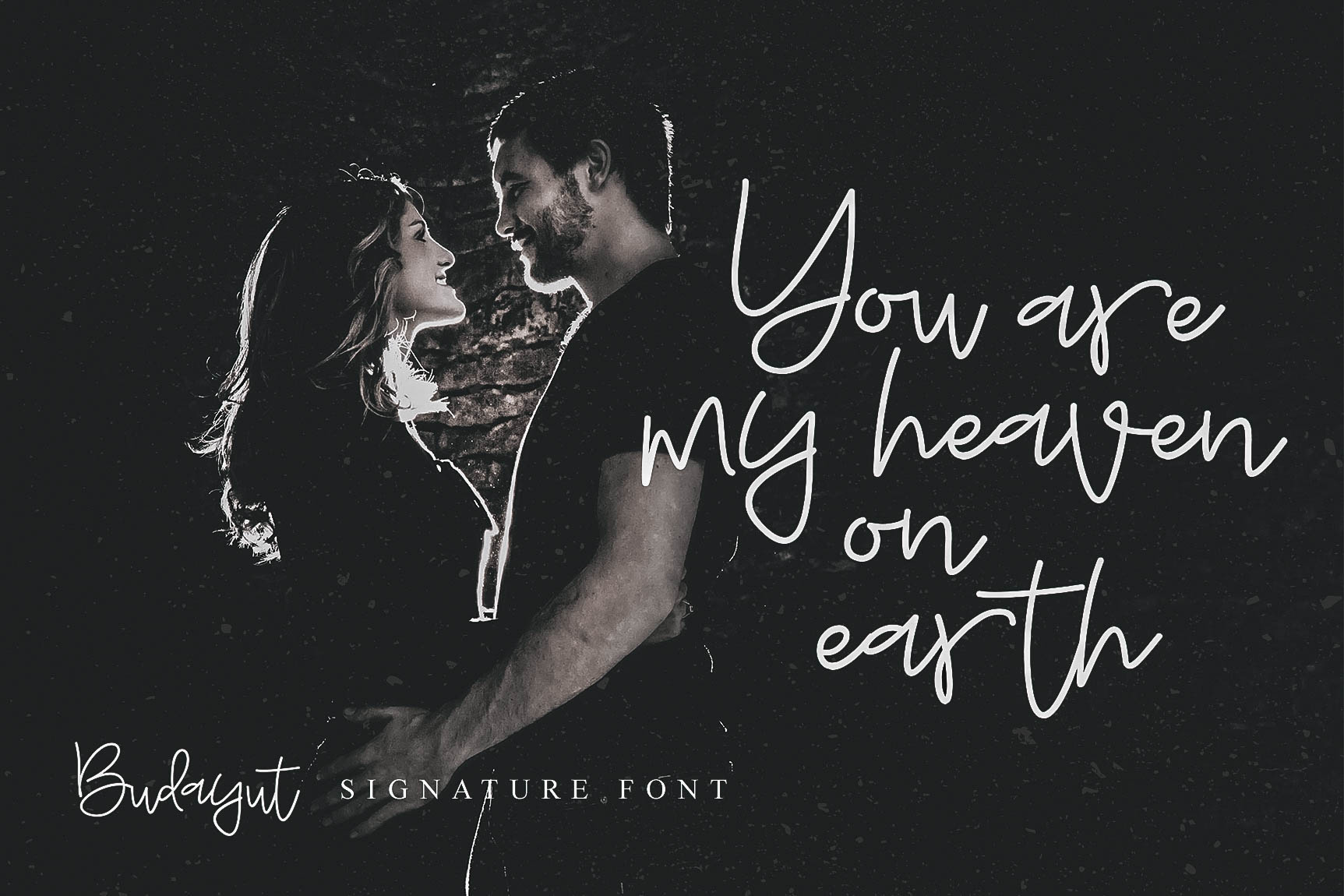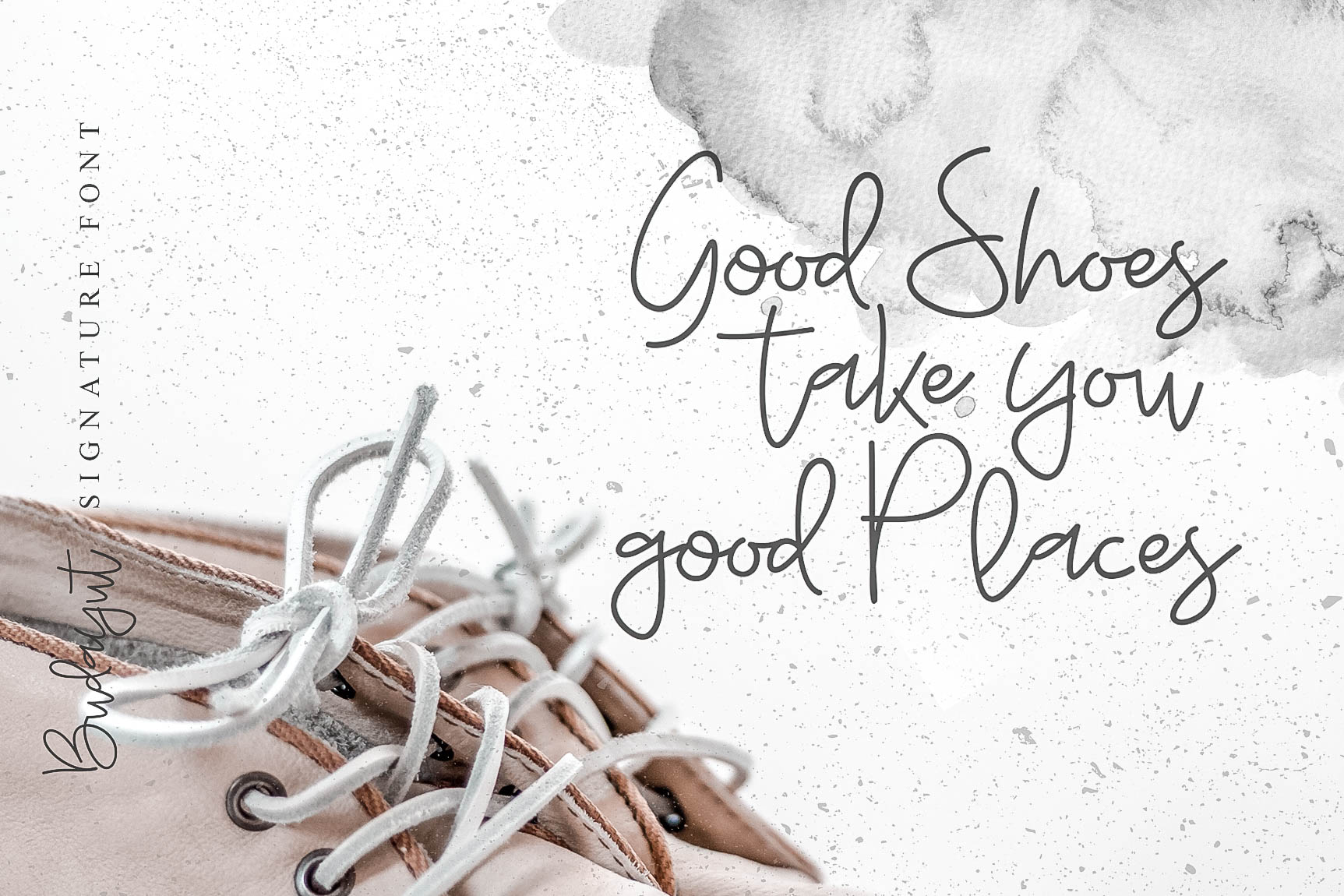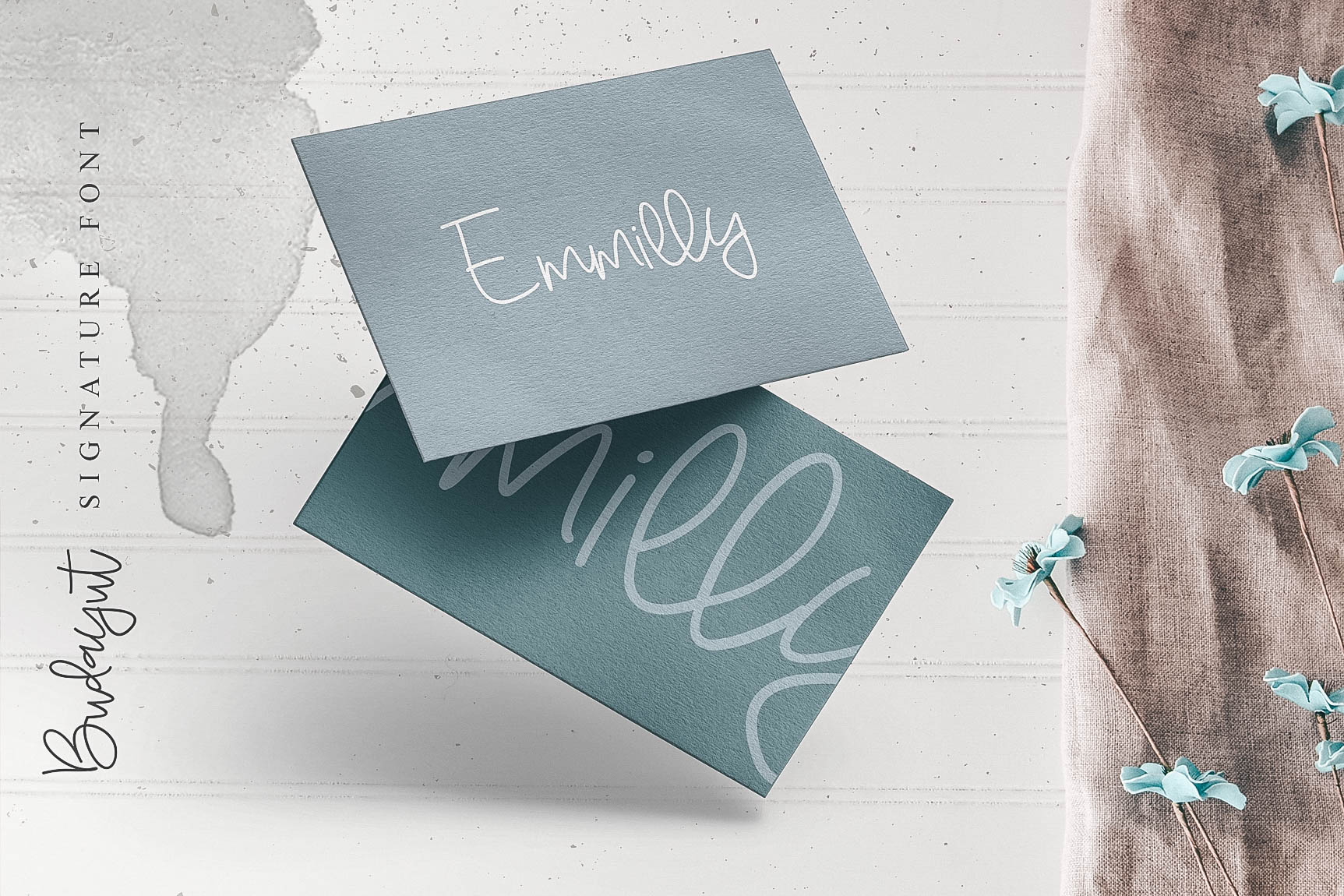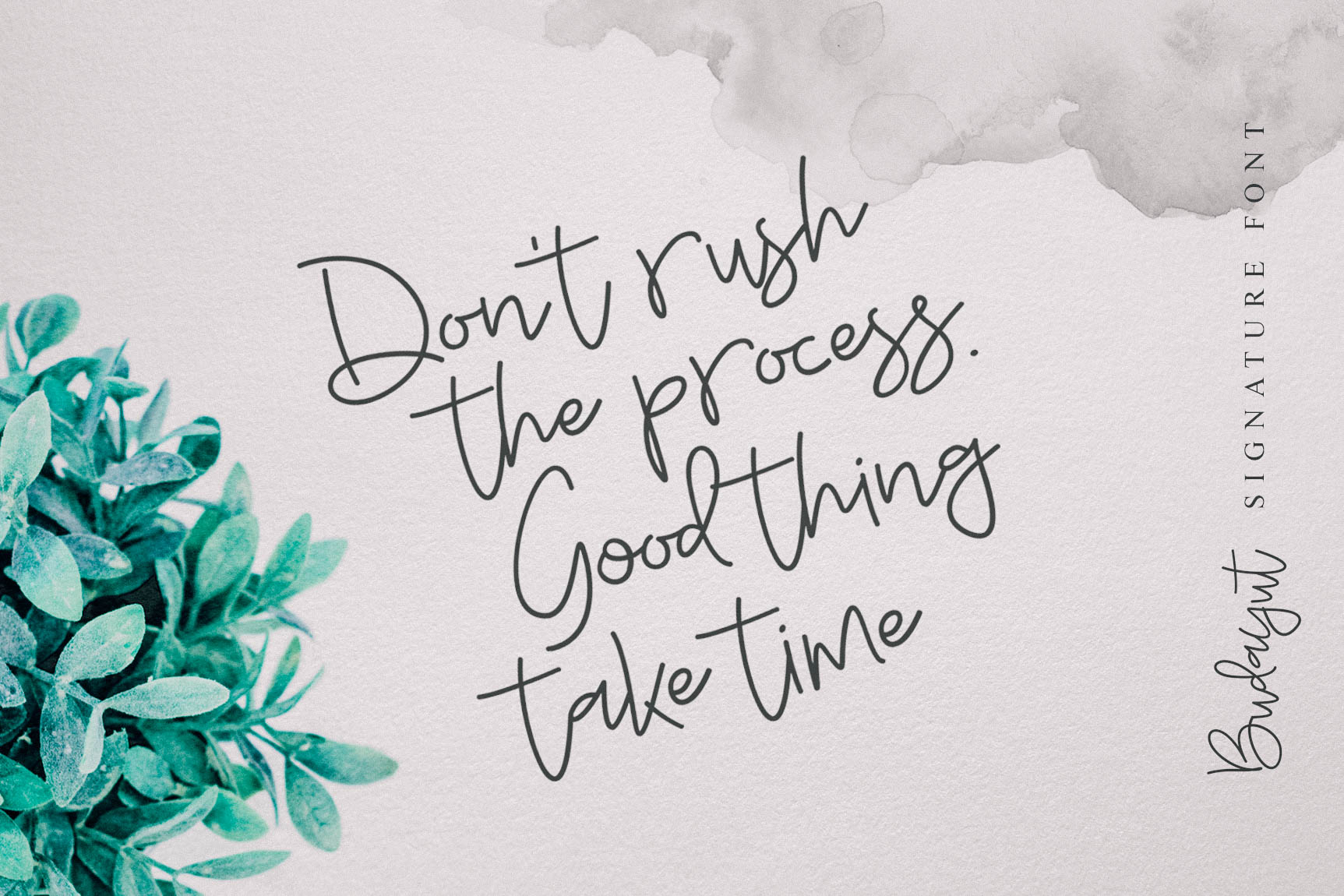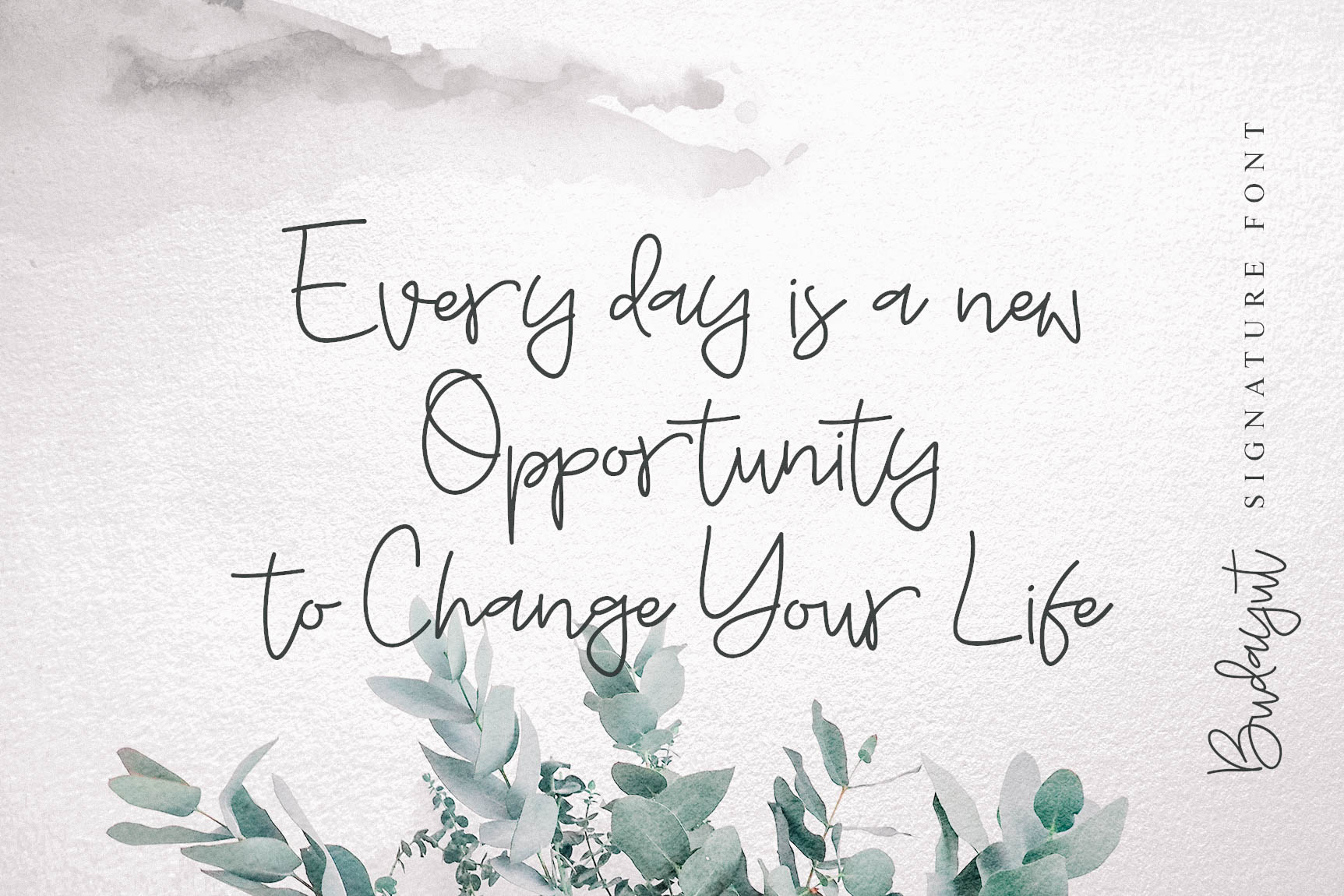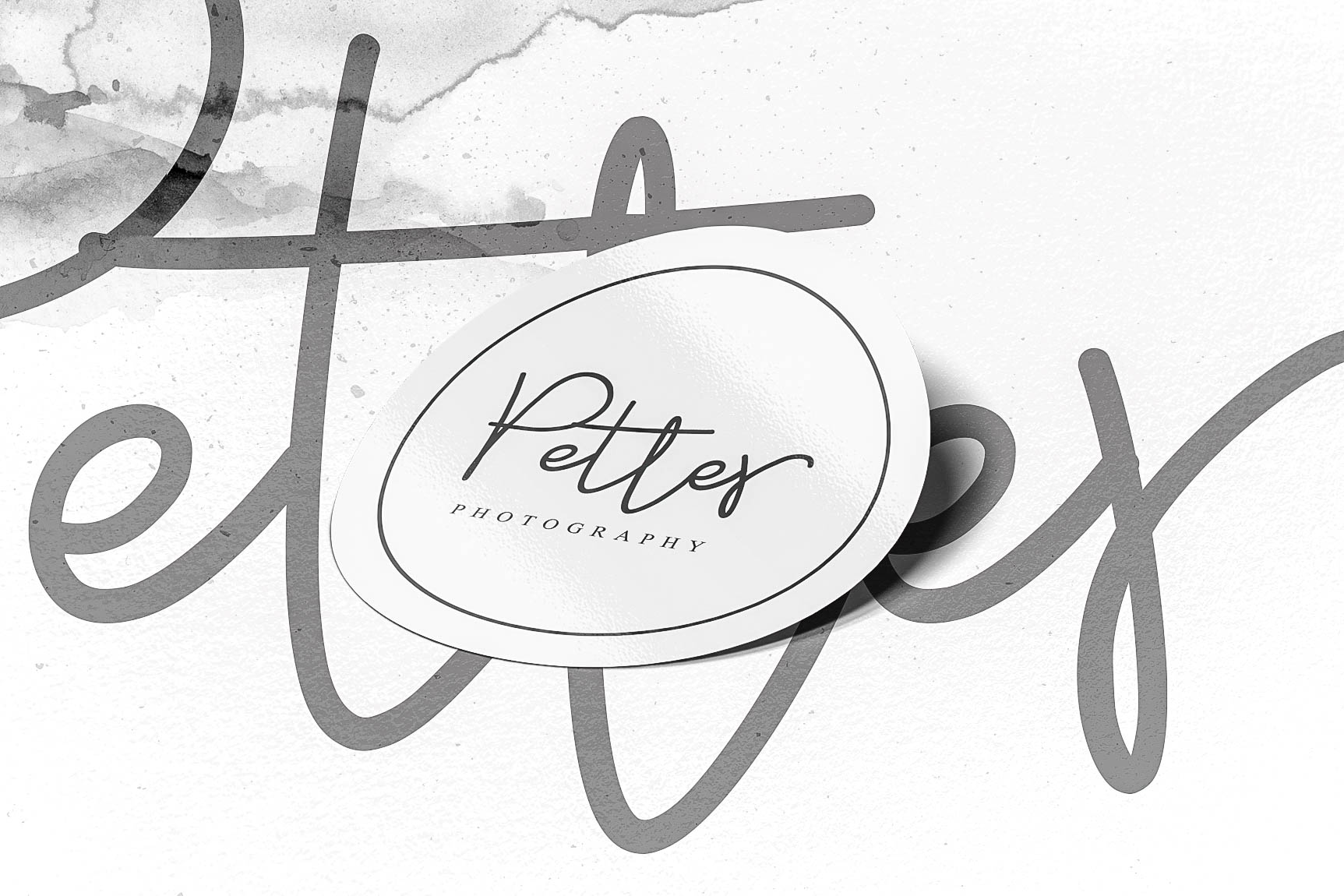
The Designer’s Delight: Unpacking the Budayut Font
I’ll never forget the struggle I faced while working on a branding project for a trendy boutique hotel. My client wanted a font that exuded elegance, sophistication, and a dash of modern flair. I scoured the internet, tried out countless fonts, but nothing seemed to fit the bill. That was until I stumbled upon the stunning Budayut font. ✨
As a designer, I’ve learned that finding the perfect font can make or break a project. And, I’m excited to share my experience with the Budayut font, a monoline signature font that’s perfect for a wide range of projects and designs.
A Honest Review: The Good, the Great, and the Quirks
What I Love About Budayut
- ✨ Elegant and Sophisticated: Budayut’s monoline design gives it a sleek, modern look that’s perfect for high-end branding, logos, and signage.
- ✅ Brandable and Versatile: This font is incredibly versatile and can be used for a wide range of projects, from fashion and beauty to lifestyle and hospitality.
- 💡 OpenType Features: Budayut comes with a range of OpenType features, including stylistic alternates, ligatures, and glyphs, making it easy to customize and personalize.
While Budayut is an amazing font, there are a few quirks to be aware of: 🤔
- ⚠️ Limited Use in Body Text: Due to its elegant, cursive design, Budayut may not be the best choice for body text. It’s better suited for headings, titles, and short paragraphs.
- ⚠️ Glyph Limitations: Some users have reported that the font’s glyph library could be more extensive. However, the existing glyphs are well-designed and easy to use.
The Designer Inspiration Behind Budayut
While the true story behind Budayut’s creation is unknown, it’s easy to imagine that the designer was inspired by the elegant lines and curves of modern typography. Perhaps they wanted to create a font that would evoke the sophistication and glamour of high-end fashion and luxury brands. Whatever the inspiration, Budayut is a stunning font that’s sure to elevate your designs. 💫
Q: What is the best use for Budayut font?
A: Budayut is perfect for branding, logos, signage, and titles. Its elegant, monoline design makes it ideal for high-end projects and designs.